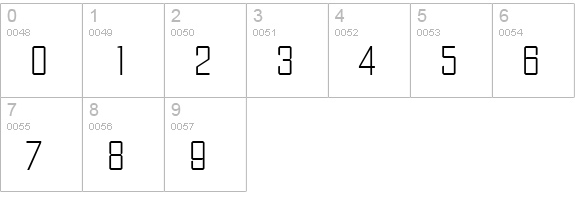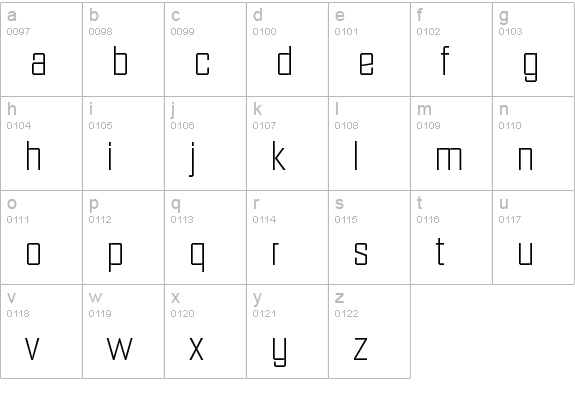
DiamanteSerial-Xlight-Regular is the standard, neutral variant in the DiamanteSerial typeface family \xE2\x80\x94 well suited to general body text, paragraphs, and standard typographic work.
DiamanteSerial-Xlight-Regular font is a sleek and modern typeface that exudes elegance and sophistication. With its delicate and refined letterforms, this font is perfect for adding a touch of luxury to any design project. The light weight of the font gives it an airy and graceful appearance, making it ideal for conveying a sense of elegance and sophistication. Best of all, DiamanteSerial-Xlight-Regular font is available for free download at FontsMarket.com. This means that you can easily access this stunning typeface and use it in your projects without any cost. Don't miss out on the opportunity to elevate your designs with the timeless beauty of DiamanteSerial-Xlight-Regular font. Download it today and add a touch of class to your creations.